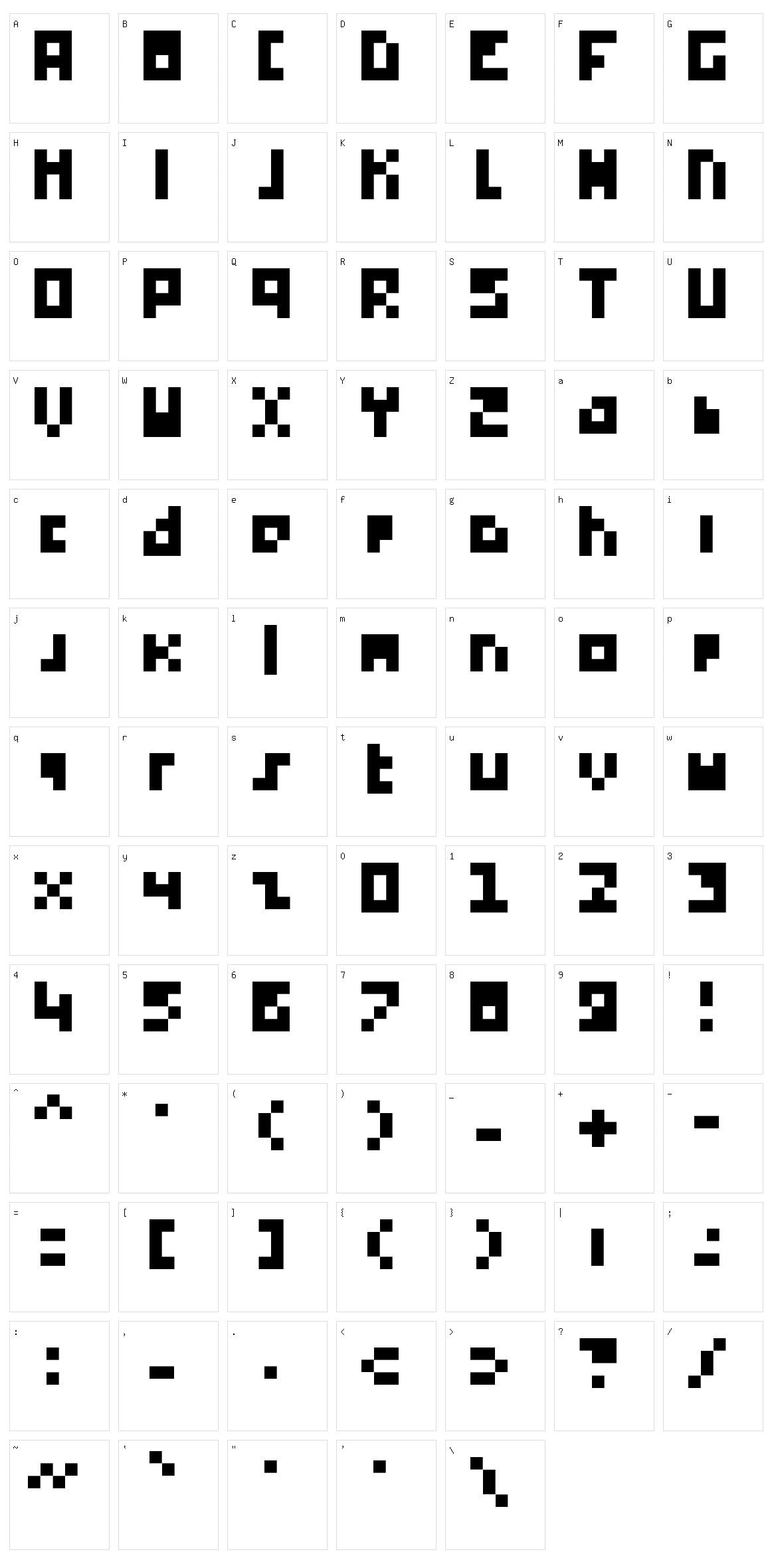
Ikkle 4
Designed by: Brixdee
This font "Ikkle-4" is created by Jack Oatley.
This font is an evolution of my other font "Ikkle", which is a 3px limited font. Ikkle-4 however is 4px limited, this allows it to have more characters and differences between upper and lower cases. Primarily designed for pixel-art games that want to make use of very limited space.